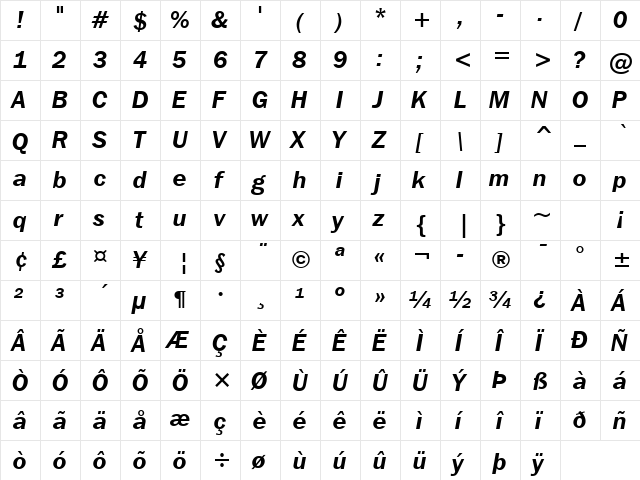
FrnkGothITC Bk BT Demi Italic Font Preview
FrnkGothITC Bk BT Demi Italic
FrnkGothITC Bk BT Demi Italic Font Details
Design Context for FrnkGothITC Bk BT Typeface
FrnkGothITC Bk BT offers clean, dependable letterforms without strong stylistic allegiance, making it a practical choice for designers who need flexibility. Its italic angle brings a sense of urgency and motion to the letterforms.